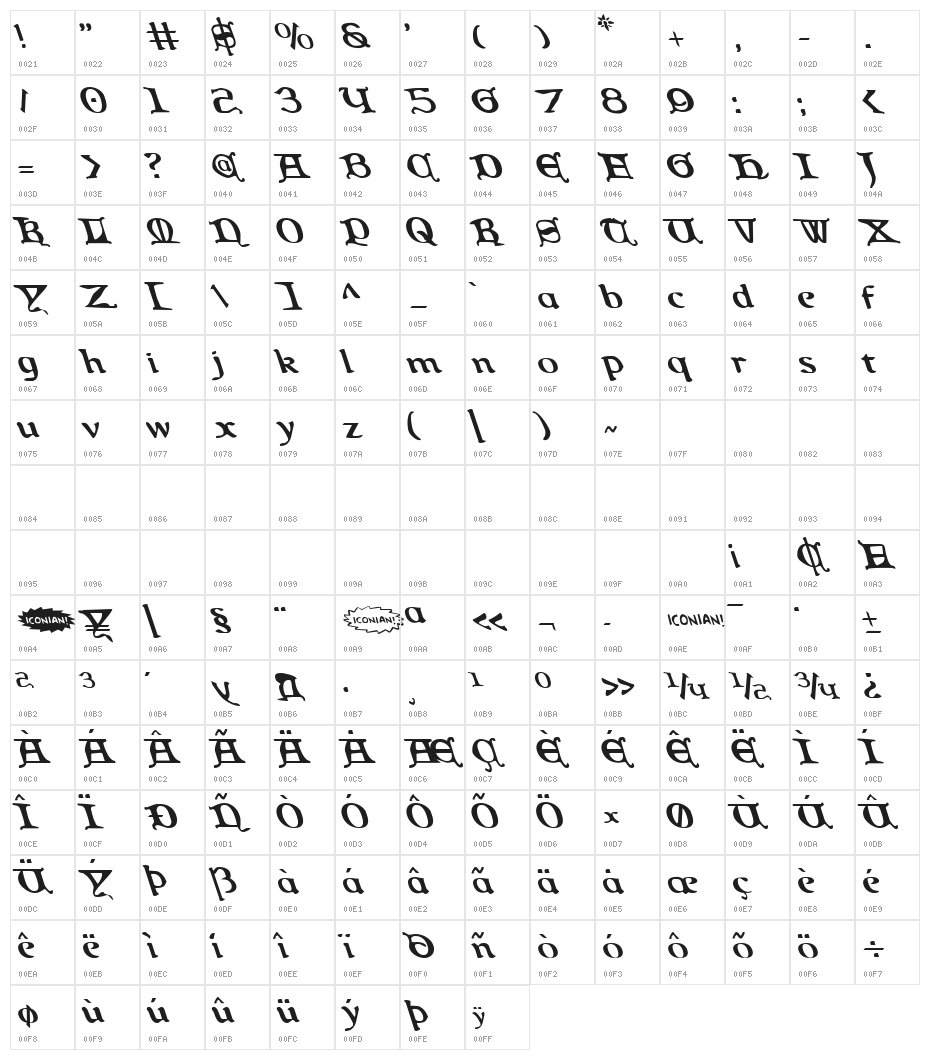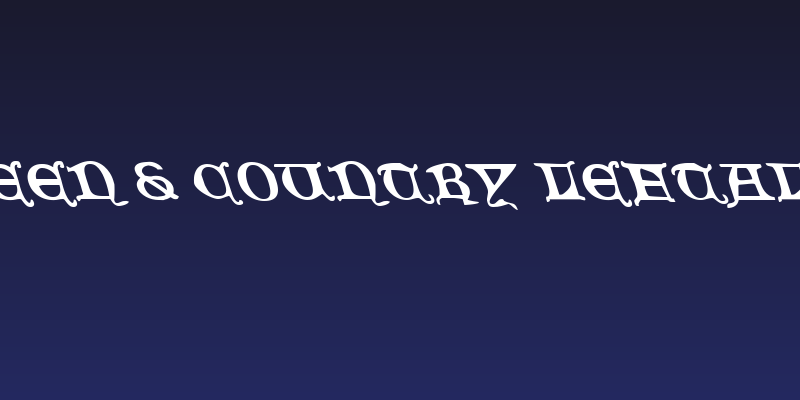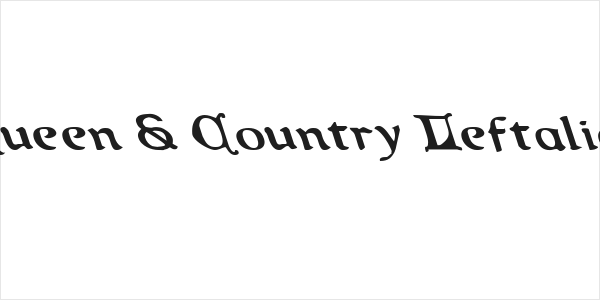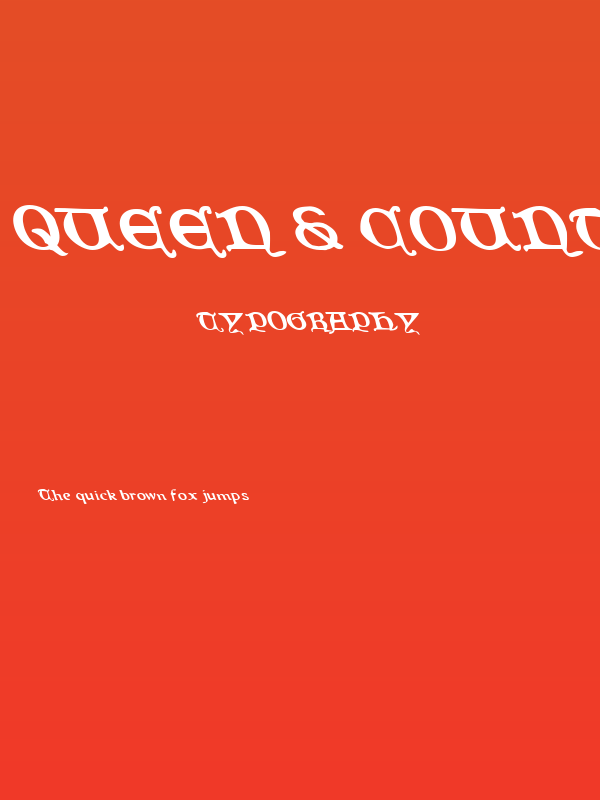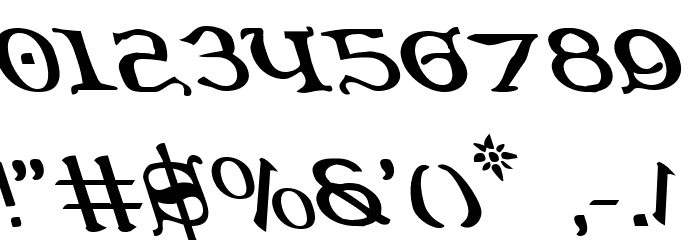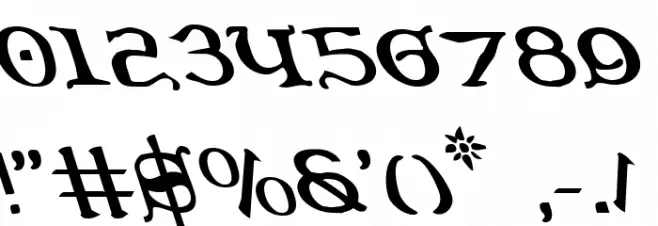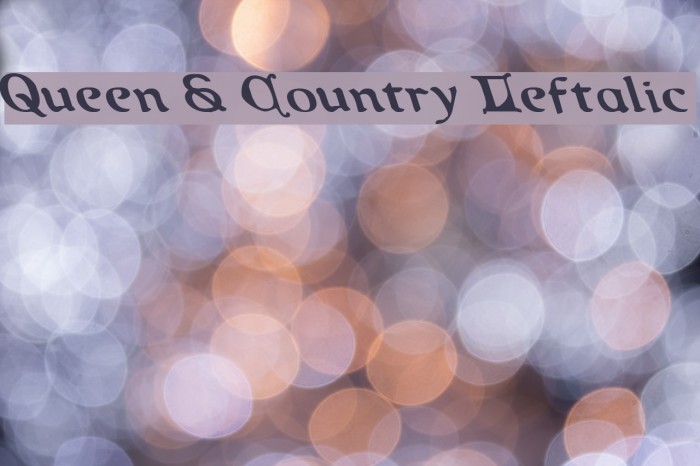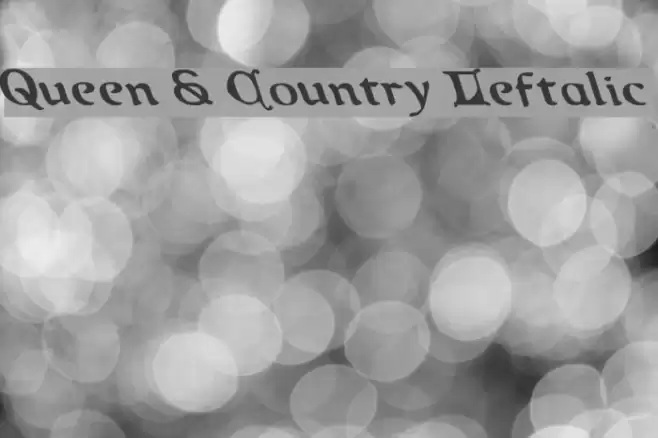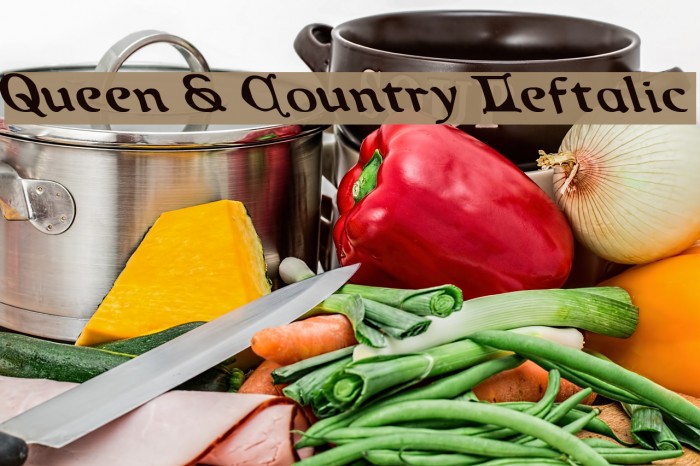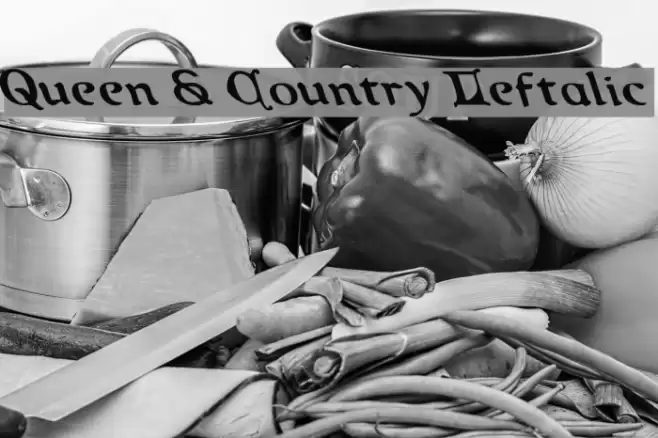
Queen & Country Leftalic Font
Queen & Country Leftalic Description
This font exhibits a unique blend of traditional and modern elements, characterized by its decorative and slightly italicized style. The uppercase letters feature intricate serifs and flourishes, giving them a regal and sophisticated appearance. The lowercase letters maintain a more straightforward design, yet they still carry a hint of the ornate style seen in the uppercase. Numbers and special characters are crafted with the same attention to detail, ensuring consistency throughout. The overall design is bold and eye-catching, making it suitable for projects that require a touch of elegance and distinction.
| Proposed Projects | Ideal for wedding invitations, luxury branding, book covers, and decorative signage. |